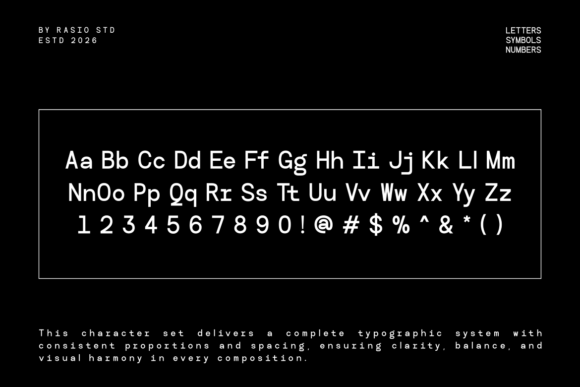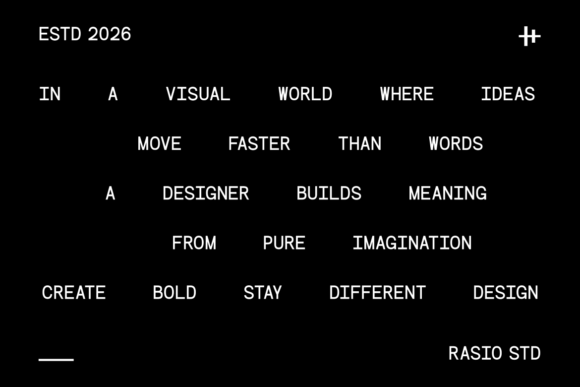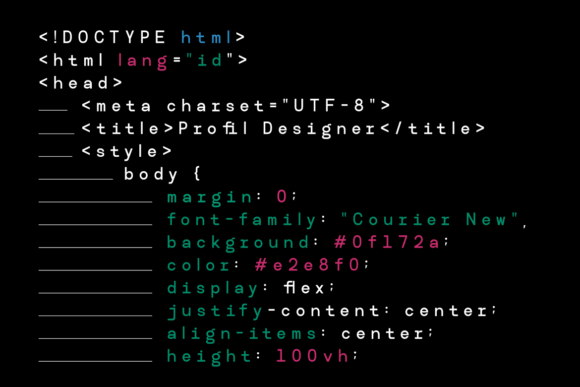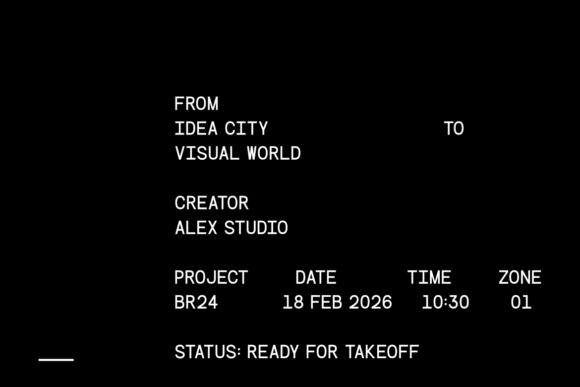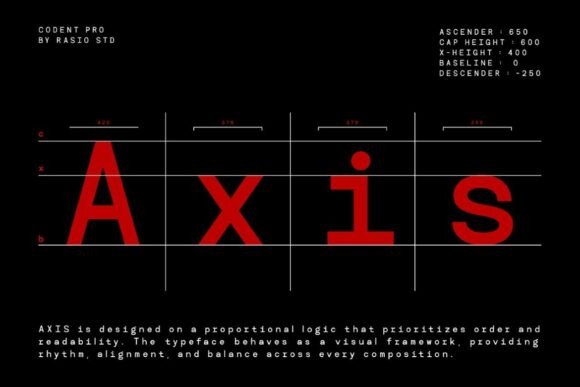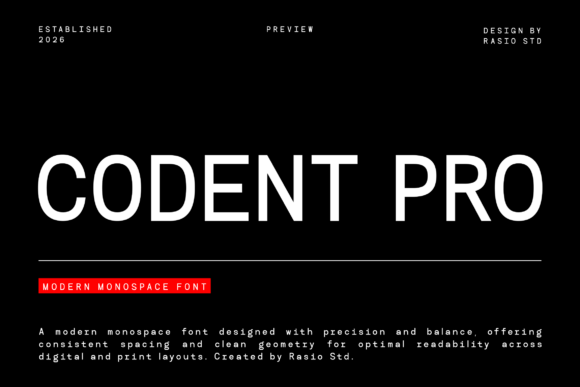
Introducing Codent Pro Font: The Ultimate Choice for Technical Clarity and Minimalism
Step into the world of technical clarity and ultra-clean minimalism with Codent Pro, a modern monospace display typeface that is redefining the way we approach digital design. This sleek font features uniform character widths and geometric sans-serif shapes, making it incredibly well-suited for a sharp, mathematical aesthetic.
The Signature Look of Codent Pro
The absolute signature look of Codent Pro relies on its perfectly balanced tracking, crisp right-angle corners, and a high-contrast presence that stands out boldly on digital screen layouts. This unique combination of features creates a visually stunning effect that is both modern and sophisticated.
Perfect for Tech-Savvy Design Projects
Codent Pro is an extraordinary option for a wide range of design projects, including tech startup logos, web development code editors, sci-fi book covers, futuristic cyber-apparel branding, and minimalist layout blueprints. Its technical accuracy and professional depth make it an ideal choice for designers who want to create a lasting impression.
Why Choose Codent Pro for Your Design Projects?
• Technical Clarity: Codent Pro’s uniform character widths and geometric shapes ensure that your design communicates complex information in a clear and concise manner.
• Minimalist Aesthetic: The font’s ultra-clean minimalism creates a sophisticated and modern look that is perfect for tech-savvy designs.
• High-Contrast Presence: Codent Pro’s high-contrast presence makes it stand out boldly on digital screen layouts, ensuring that your design grabs attention.
• Professional Depth: The font’s perfectly balanced tracking and crisp right-angle corners create a sense of unyielding professional depth and legendary technical accuracy.
Transforming Standard Information into Structural Art
Codent Pro delivers a powerful sense of unyielding professional depth and legendary technical accuracy to your visual canvas, transforming standard information into structural art. With this font, you can create designs that are not only functional but also visually stunning.
Design Applications for Codent Pro
Codent Pro is versatile and can be used in a variety of design applications, including:
• Tech Startup Logos: Create a lasting impression with a modern and sophisticated logo that communicates technical accuracy and professional depth.
• Web Development Code Editors: Use Codent Pro to create a user-friendly and functional code editor that is both stylish and efficient.
• Sci-Fi Book Covers: Add a touch of futurism and technical accuracy to your sci-fi book covers with Codent Pro’s unique and striking design.
• Futuristic Cyber-Apparel Branding: Create a bold and eye-catching brand identity with Codent Pro’s high-contrast presence and geometric shapes.
• Minimalist Layout Blueprints: Use Codent Pro to create clean and functional layout blueprints that communicate complex information in a clear and concise manner.
In conclusion, Codent Pro is a modern monospace display typeface that is perfect for designers and crafters who want to create technically accurate and visually stunning designs. Its unique combination of features, including uniform character widths, geometric shapes, and high-contrast presence, make it an ideal choice for a wide range of design projects. With Codent Pro, you can transform standard information into structural art and create a lasting impression on your audience.